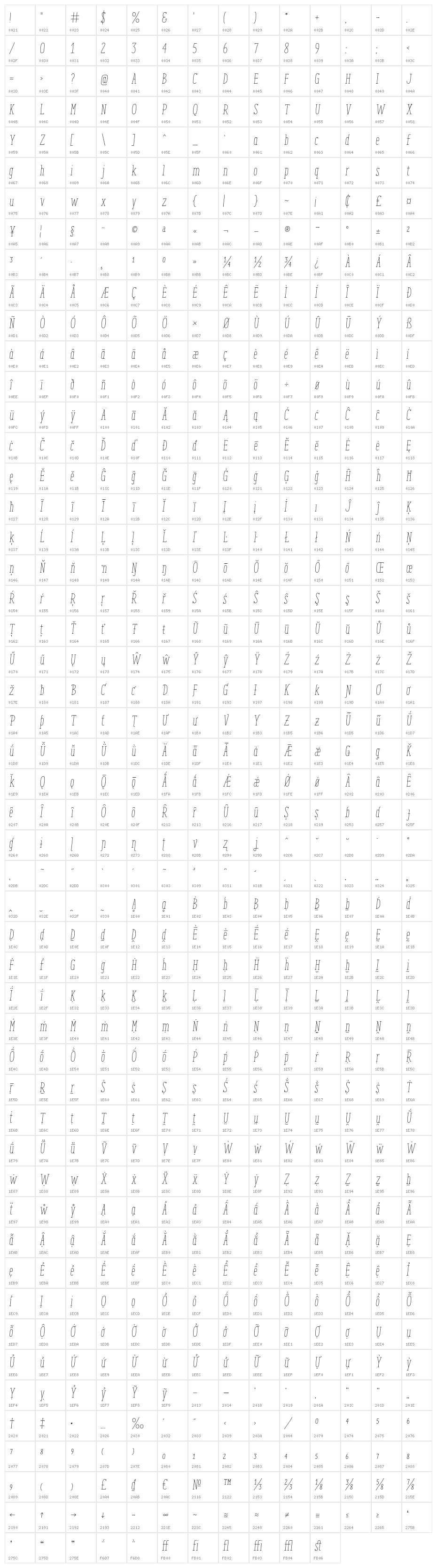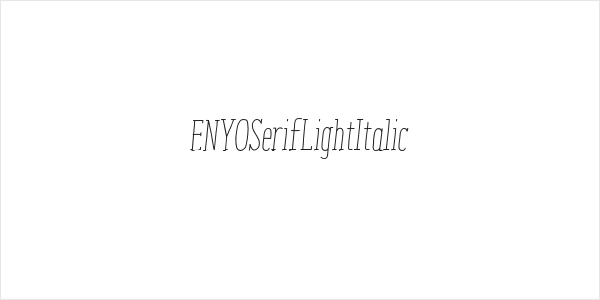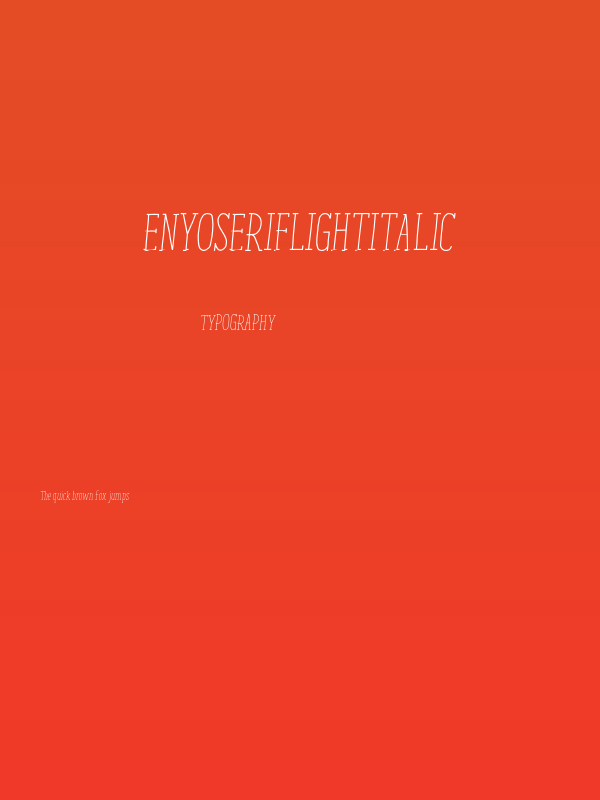
ENYOSerifLightItalic Font
ENYOSerifLightItalic Description
This elegant serif font features a light and italicized style, characterized by its slender and slightly slanted letterforms. The strokes are delicate, with a subtle contrast between thick and thin lines, giving it a refined and sophisticated appearance. The serifs are understated, adding a touch of classic elegance without overwhelming the design. The overall look is airy and graceful, making it suitable for projects that require a touch of class and sophistication. The spacing between characters is normal, ensuring readability while maintaining its stylish flair.
| Proposed Projects | Ideal for wedding invitations, luxury branding, editorial design, and elegant stationery. |